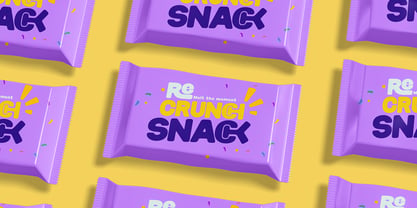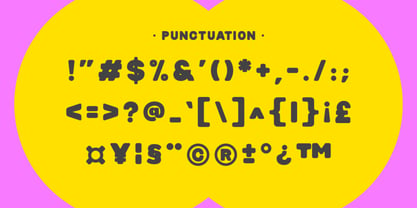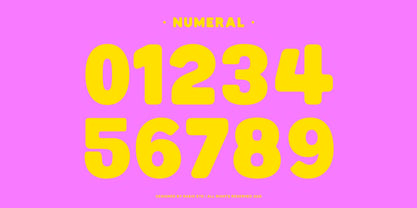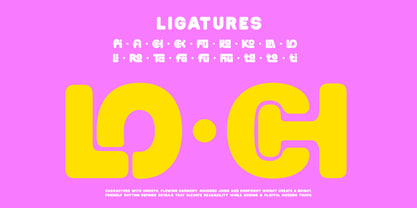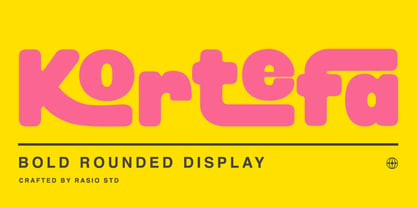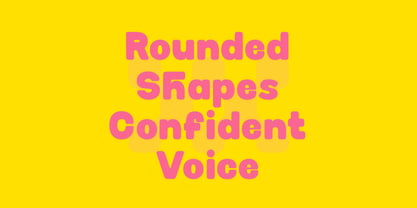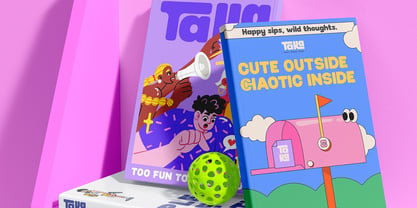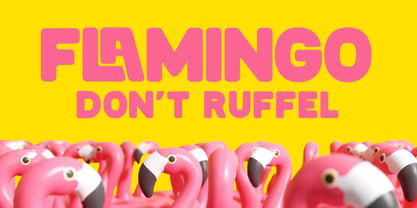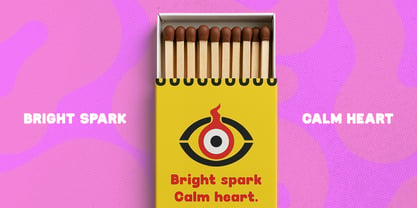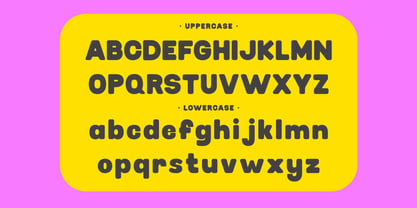
Kortefa
Kortefa is a bold and bubbly display font with rounded corners and a retro-pop aesthetic that radiates fun and friendliness. This typeface features full uppercase and lowercase alphabets with a smooth, chunky form ideal for grabbing attention. Kortefa is relevant for branding and design projects that require a joyful and approachable tone. It’s ideal for children’s product packaging, event posters, funky fashion branding, retro-themed social media content, or creative campaigns looking to stand out. The friendly forms make it especially suitable for informal and playful contexts that need bold visibility with charm.